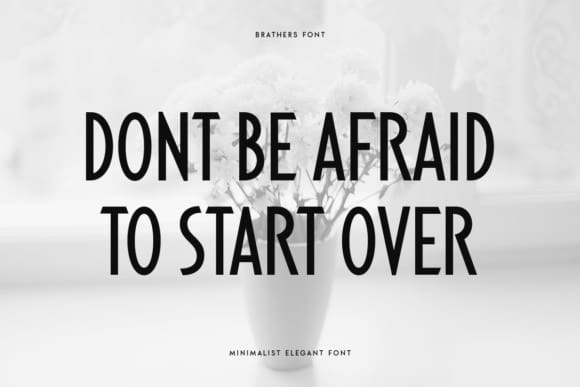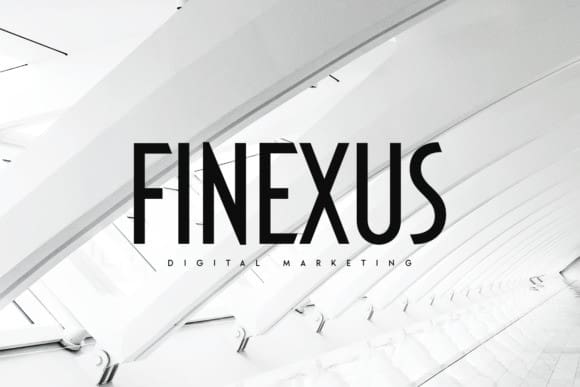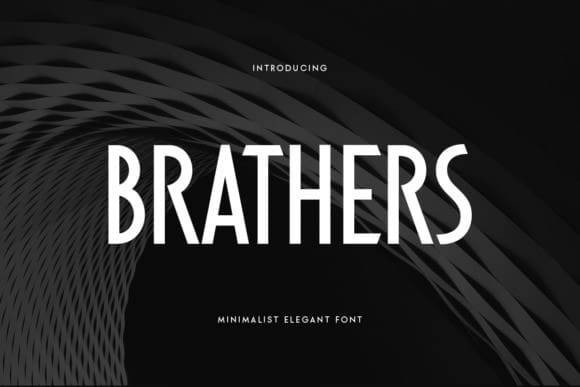
Brathers Font
Brathers Font is a refined and contemporary typeface characterized by its sleek and slender design. With clean lines and minimalistic forms, it exudes sophistication and style. Ideal for modern branding, elegant headlines, and sleek design projects that require a touch of refinement and sophistication.